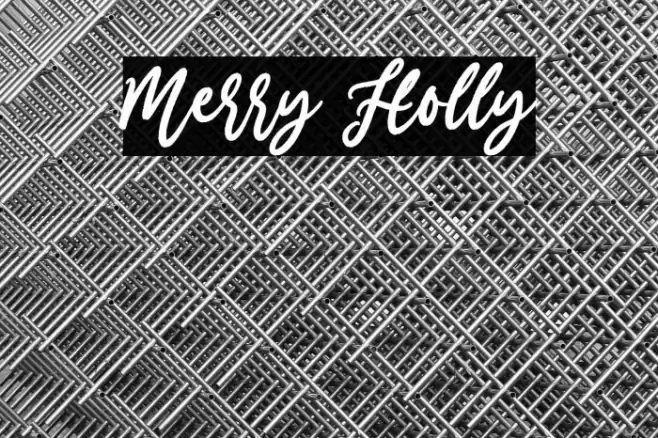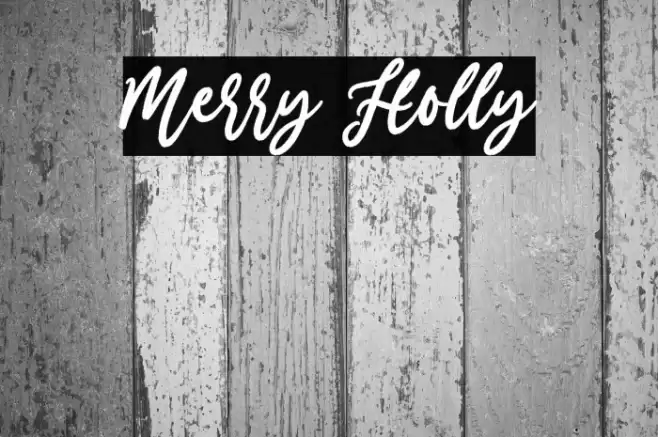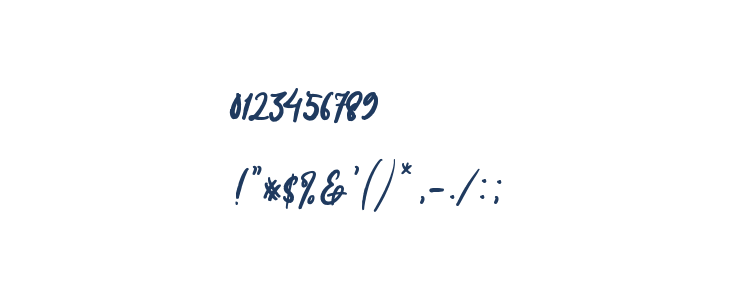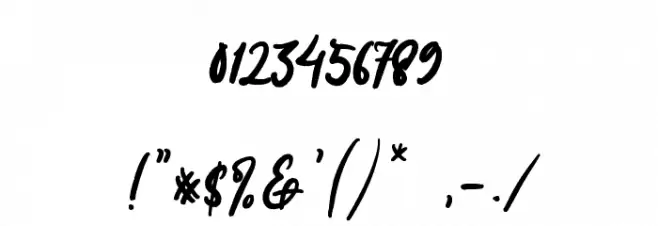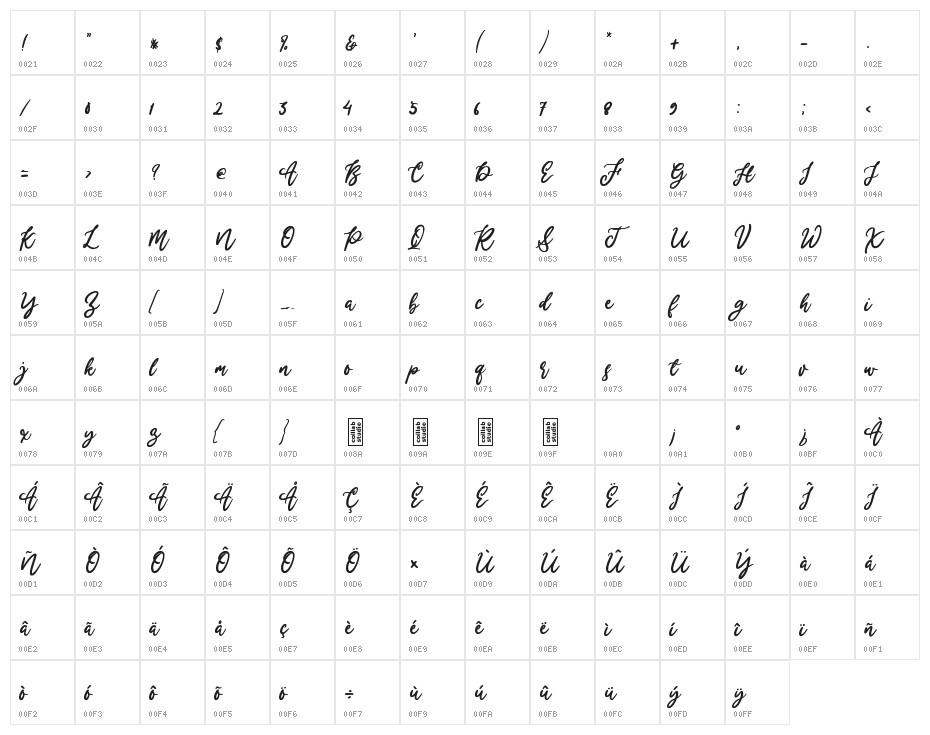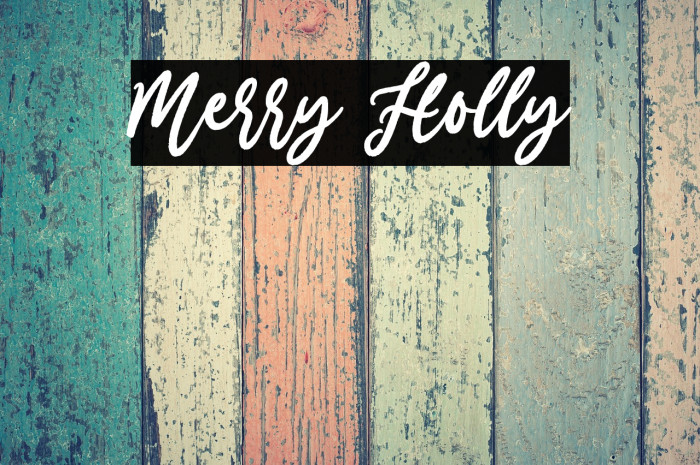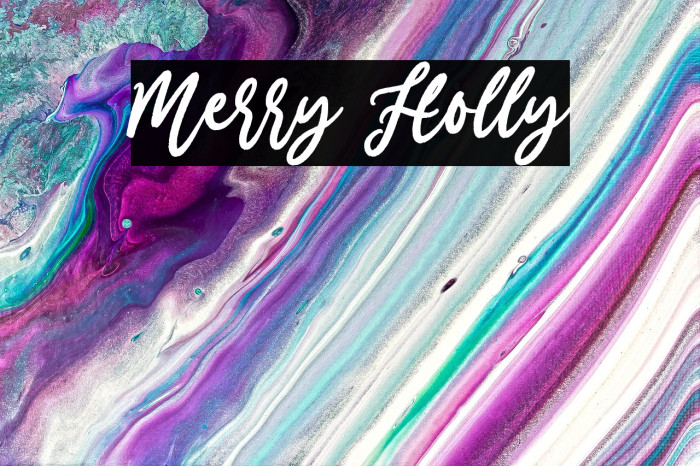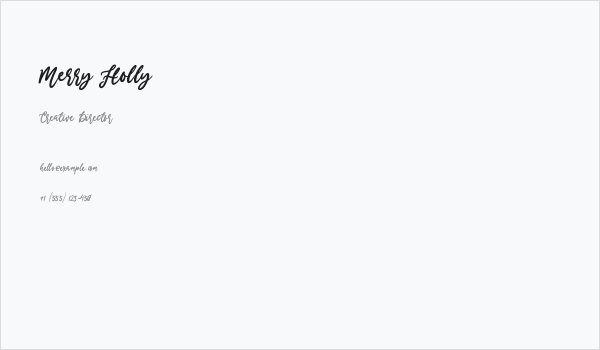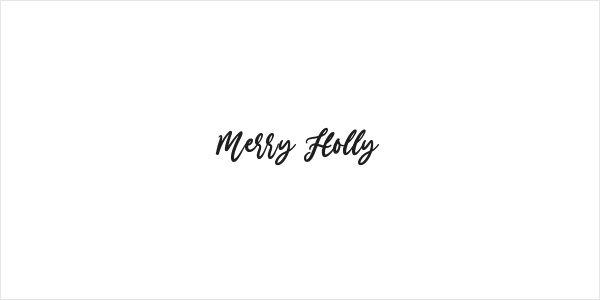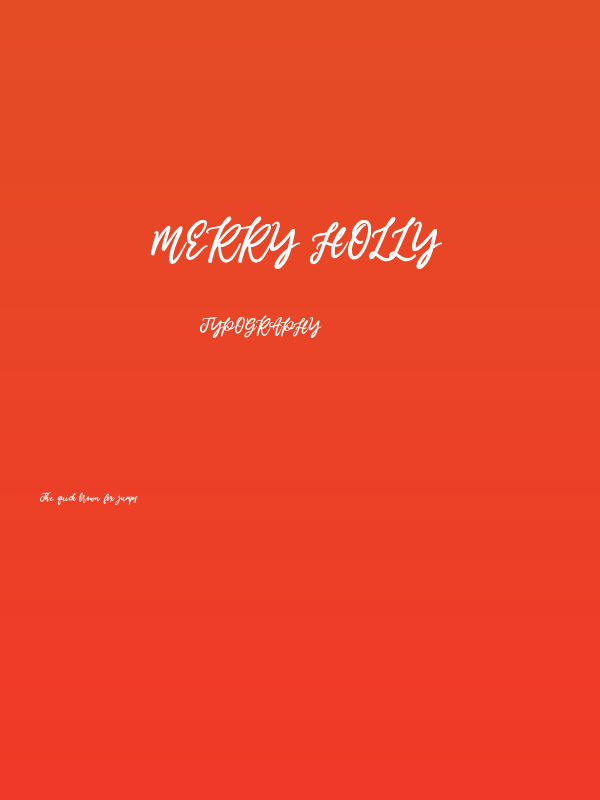
Merry Holly Font
Merry Holly Description
This font features a flowing, cursive style with a handwritten appearance, characterized by its elegant and fluid letterforms. The script is highly decorative, with each character seamlessly connecting to the next, creating a continuous and harmonious visual flow. The uppercase letters are ornate and slightly larger, while the lowercase letters maintain a consistent rhythm and balance. The numbers and special characters are designed to match the overall aesthetic, adding to the font's cohesive look. This font exudes a sense of sophistication and charm, making it ideal for projects that require a personal and artistic touch.
A decorative, cursive script font with a flowing, handwritten style from Regular fonts.